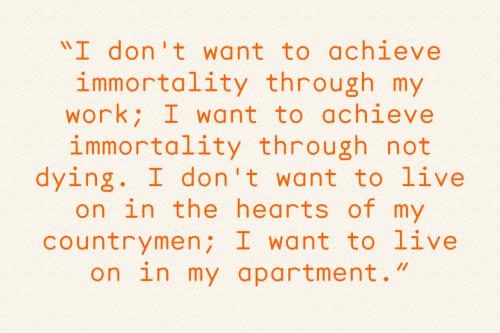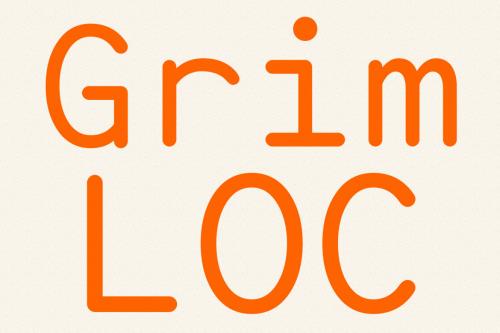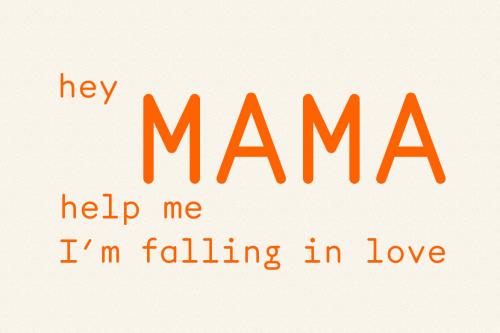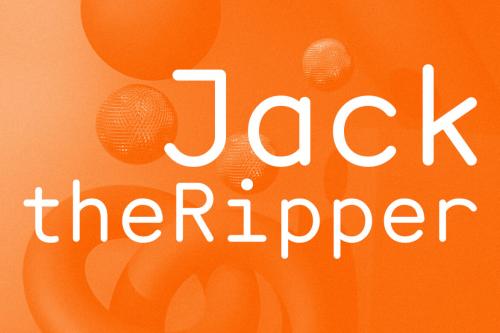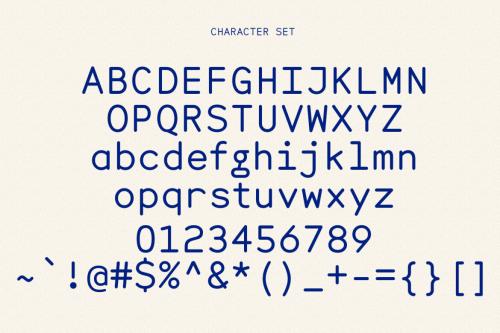
Noguf is a modern monospace display font. With regular consist stroke, fun character with a bit of ligatures and alternates. To give you an extra creative work. Noguf font support multilingual more than 100+ language. This font is good for logo design, Social media, Movie Titles, Books Titles, a short text even a long text letter and good for your secondary text font with script or serif. Make a stunning work with Noguf font.